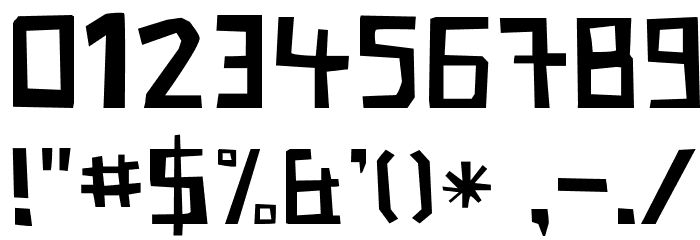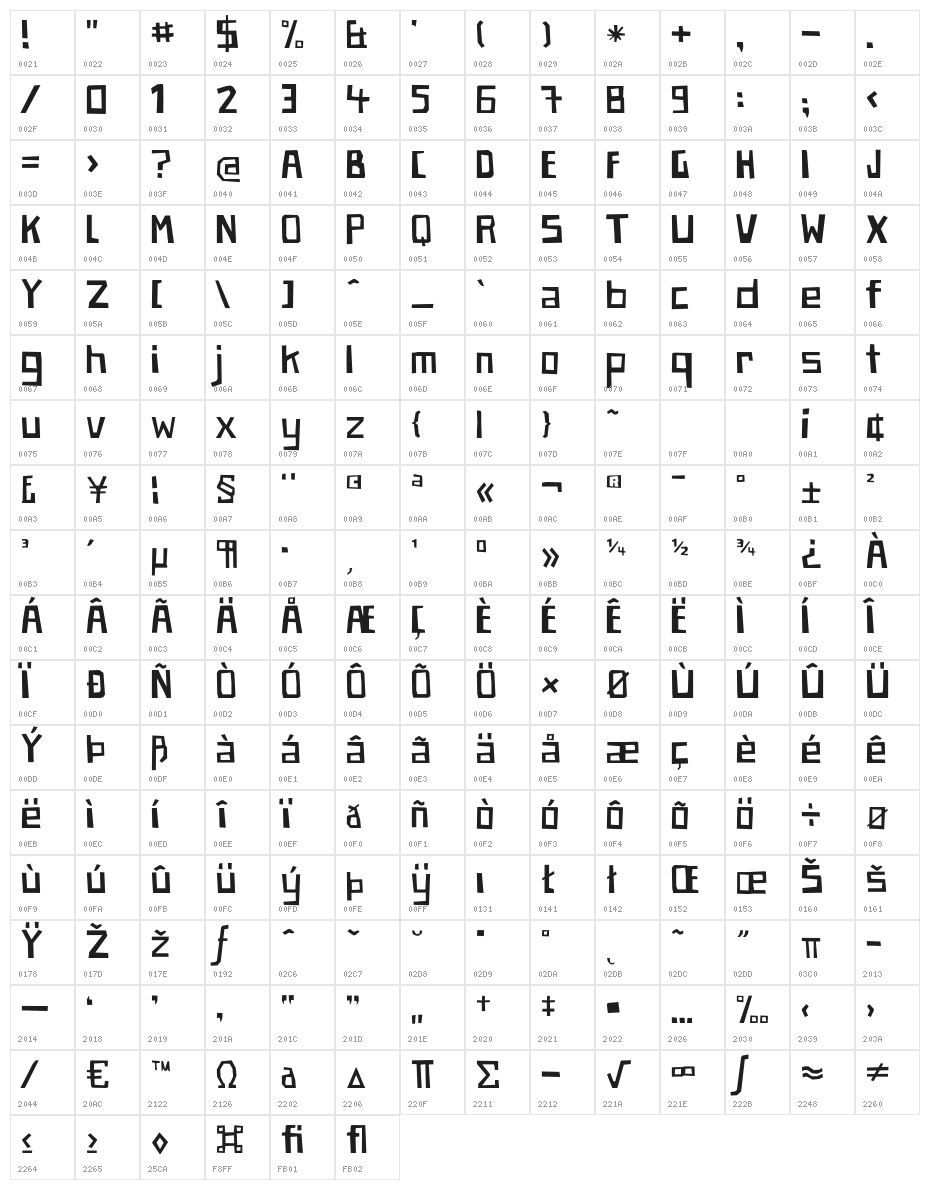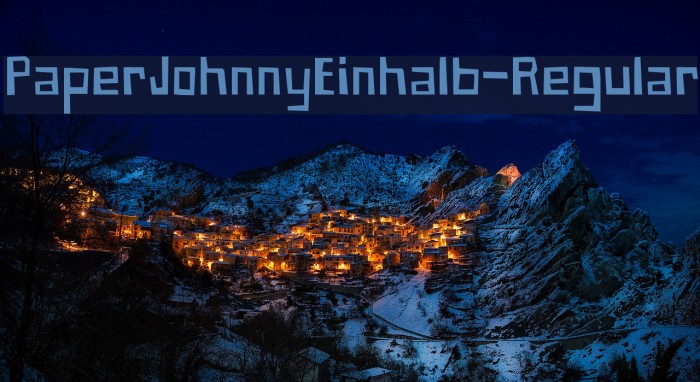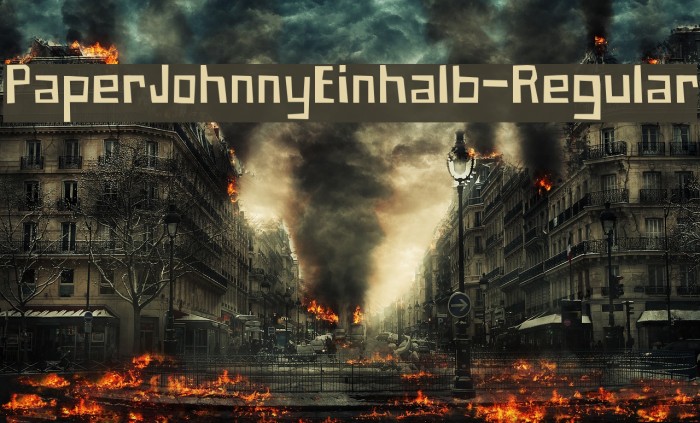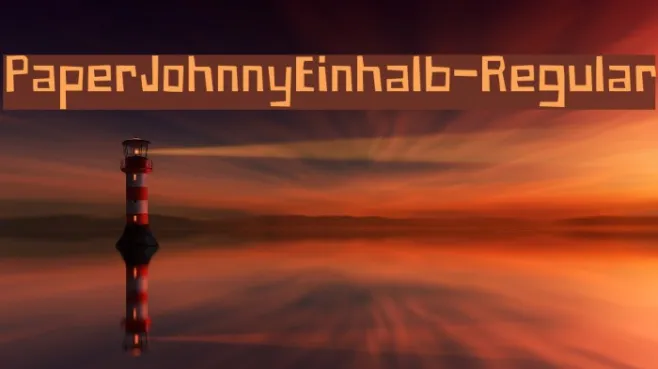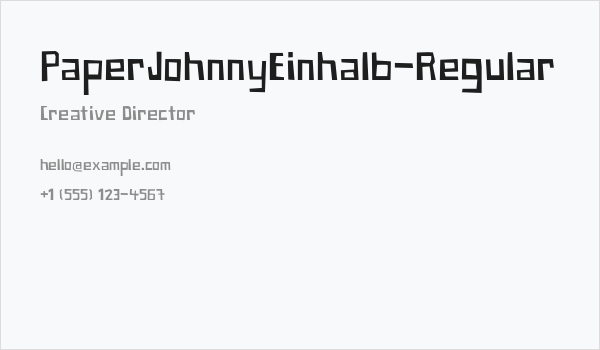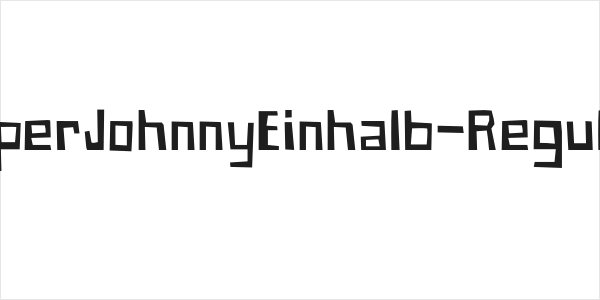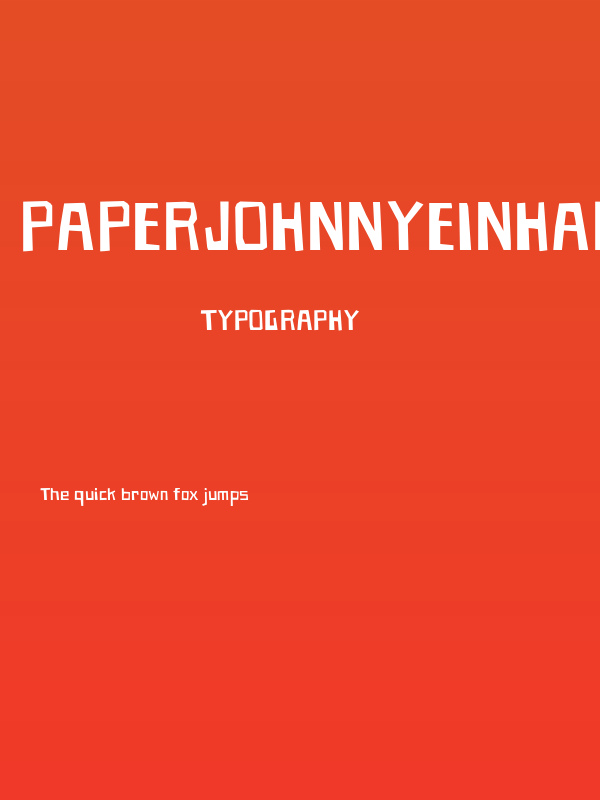
PaperJohnnyEinhalb-Regular Font
PaperJohnnyEinhalb-Regular Description
This font features a bold and angular design, characterized by its sharp edges and geometric shapes. The uppercase letters are particularly striking, with a blocky appearance that conveys strength and modernity. The lowercase letters maintain the same angular style, providing a cohesive look across the typeface. Numbers and special characters follow the same design principles, ensuring consistency throughout. The overall aesthetic is both contemporary and slightly edgy, making it suitable for projects that require a strong visual impact.
| Proposed Projects | Ideal for branding, posters, and headlines that need a strong, modern look. |